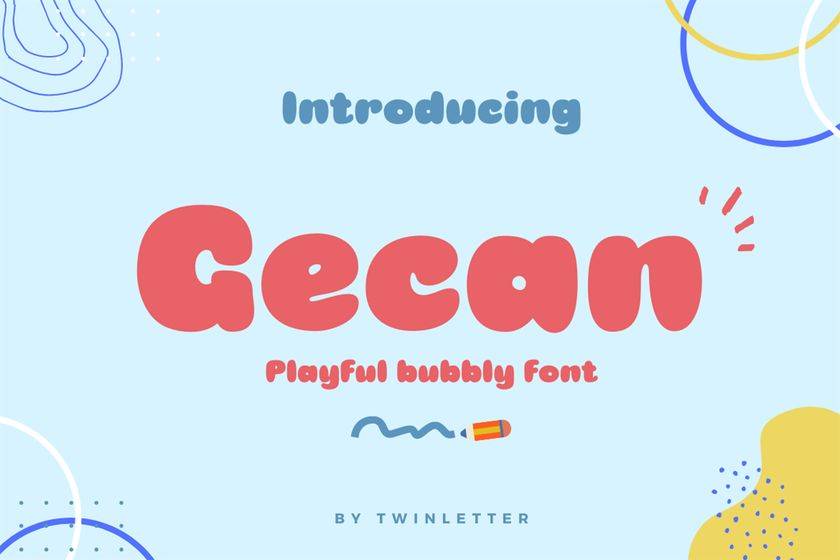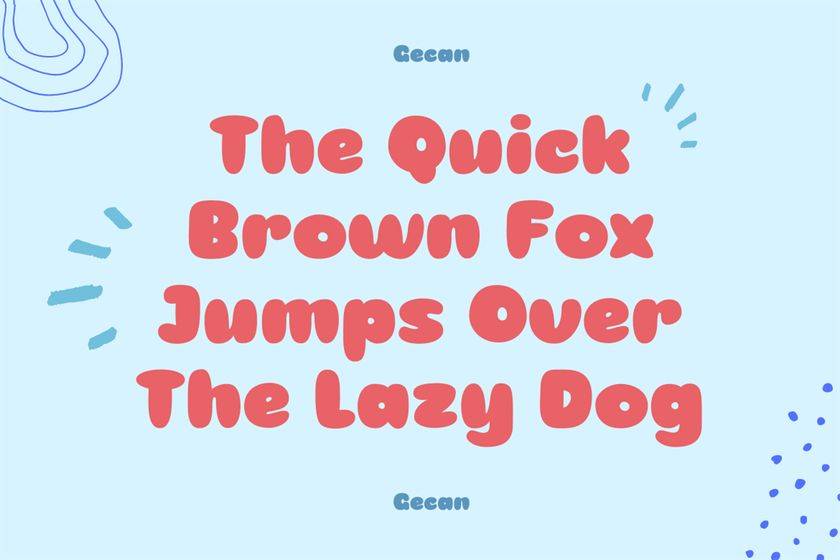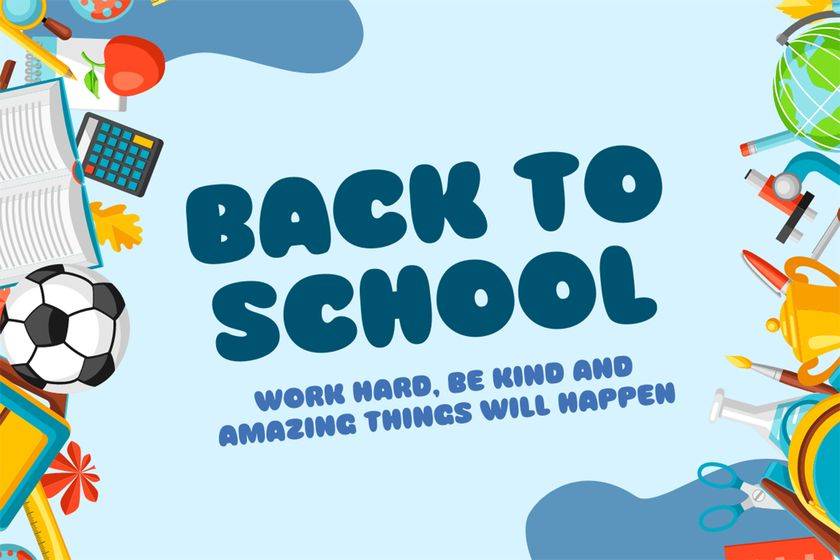
Gecan is a bold, rounded sans serif font that exudes a playful and friendly vibe with its thick, soft-edged letterforms and uniform stroke weight. Its chunky, casual style makes it perfect for eye-catching headlines, fun branding, children's products, and informal designs where a warm and approachable tone is desired. This font stands out in creative projects that seek a lively, youthful personality.
Gecan Font
About Gecan Font